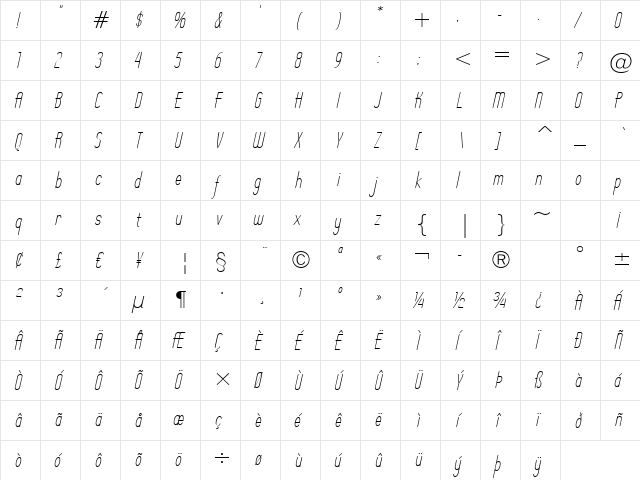
Operator Nine BTN Lt Oblique Font Preview
| Style | Oblique |
Design Context for Operator Nine BTN Lt Typeface
Operator Nine BTN Lt offers clean, dependable letterforms without strong stylistic allegiance, making it a practical choice for designers who need flexibility. Its italic angle brings a sense of urgency and motion to the letterforms. Its slender proportions lend an understated elegance to any composition.
Pro Tip: Use Operator Nine BTN Lt for emphasis, pull quotes, and subheadings where its slanted energy can add rhythm to the layout.